Fonts can make or break your design, especially when we wat to create the headlines or titles where it is a crucial factor in attracting your visitors’ attention. In such cases, the focus should be on the font style and its capabilities. Therefore, in this post we want to highlight all the caps fonts that are best suited for creating amazing headlines.
In this important article we have gathered more as 40 all caps fonts for your design with the focus on the fonts that best fit your header designs. You can use these fonts in many more different designs such as for posters, brochures, invitations and more others. Keep a good mood and enjoy!
Why use all caps fonts?
Although there is a readability point with using all caps, there are certain times where you should use all caps fonts. Caps are suitable for headings shorter than one line, headers, footers, caption, or other labels. They work at small point sizes and work well on letterhead and business cards.
There are also times where you shouldn’t use all caps fonts. It would be sometimes be best not to use them to emphasize your message, which would appear rude or unprofessional.
Awkward Billy
An all caps font with differences between uppercase and lowercase, irregular width, bouncy baseline. Perfect for any headlines, titles, posters, flyers, packaging and etc.
BAVALOR
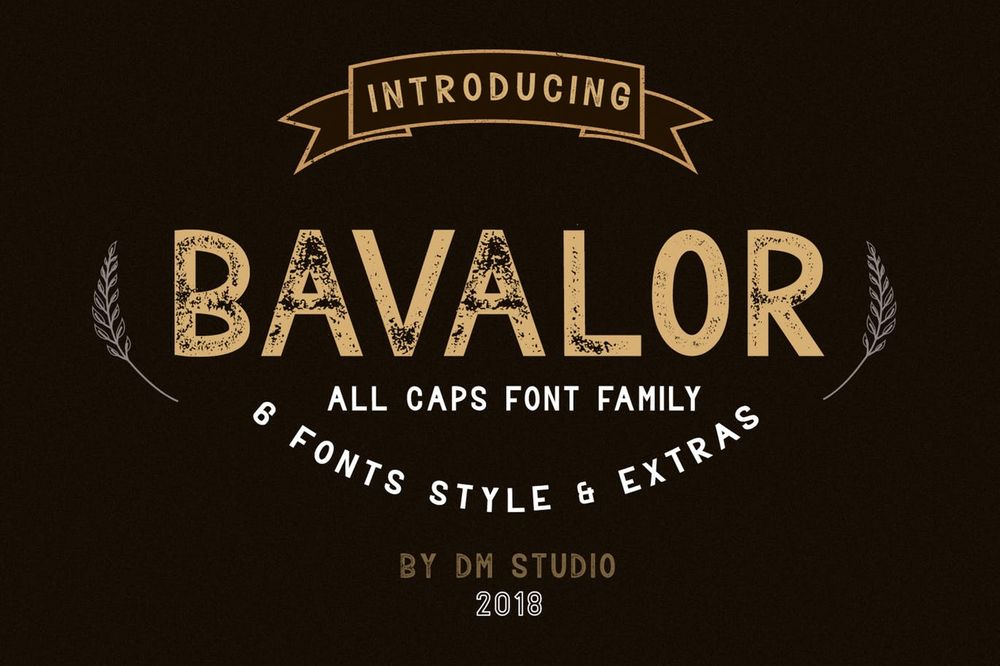
The all in caps sans serif-font family. It includes regular, outline, and grunge version with normal & italic style. Ideal for headlines, titles, badges, labels, packaging, posters and etc.
Watterlen
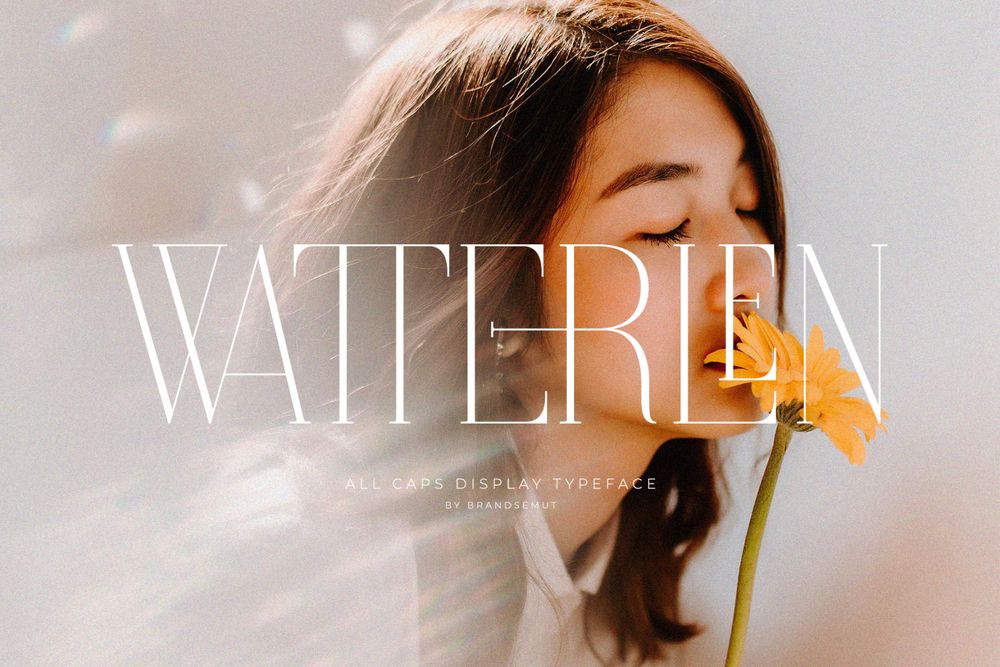
It is a classic and classy serif font. This font is both modern and nostalgic working great for logos, magazines, social media.
GLITTEN
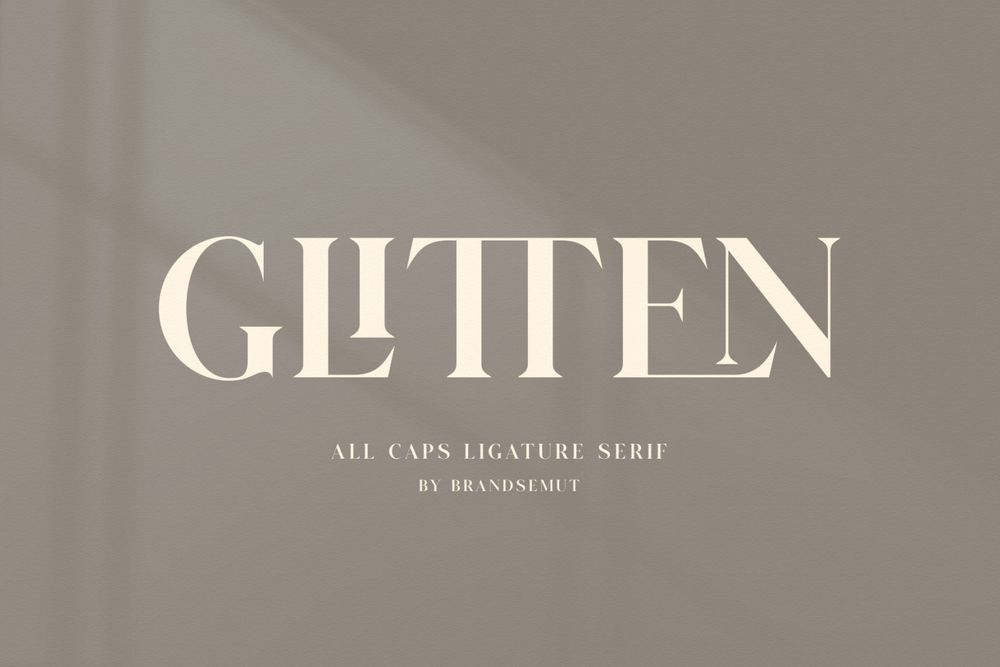
It is a elegant and classy serif typeface. This font is both modern and nostalgic working great for logos, magazines, social media.
Chia Seeds
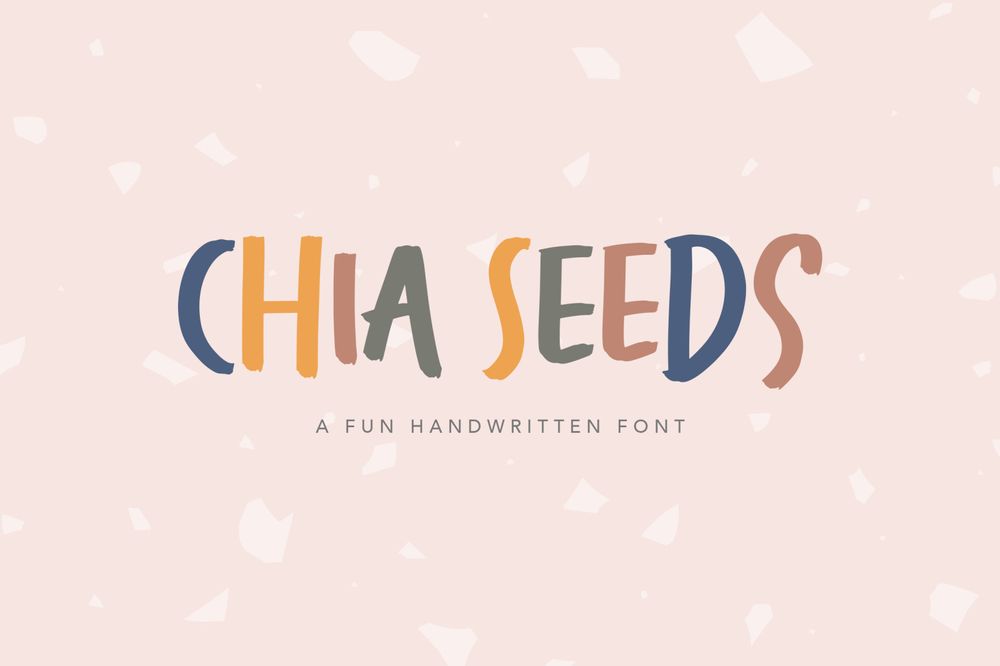
It is a fun brushed, bold, and playful font all caps type. It’s a perfect fit for a quotes, travel theme, food and nature theme – or a stylish text overlay to any background image.
Commodus
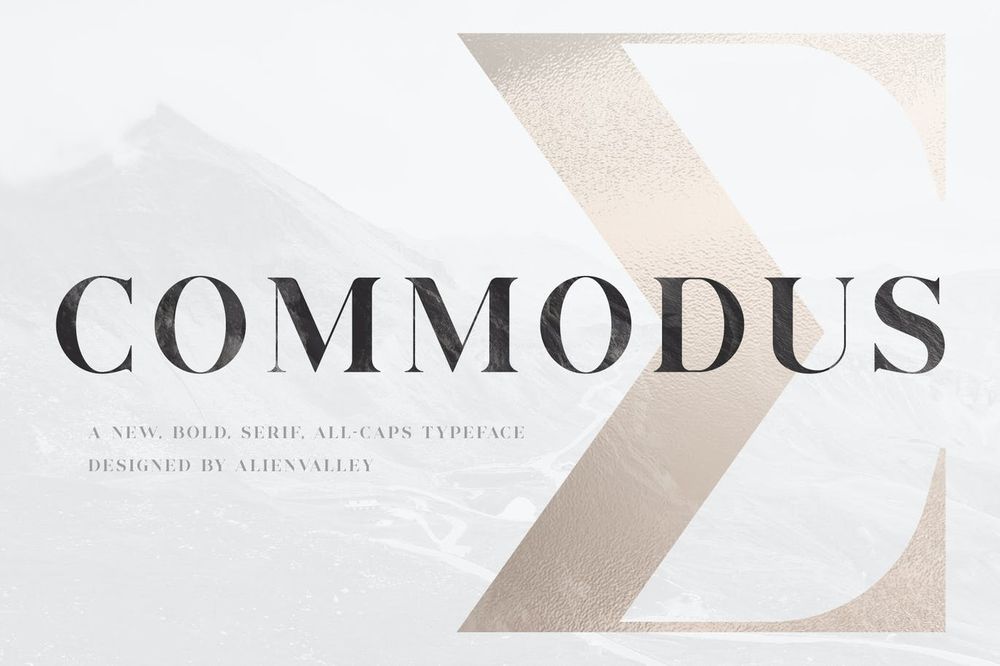
It is a bold all caps serif font. Perfect for any kind of headlines, titles, posters, lettering, packaging and etc.
Klausen
This font was designed for headlines and headers and it looks great when combined with script or signature fonts.
Baron Neue (Free)
It is an free uppercase display typeface inspired by the classic sans serif font families. Perfect for usage in posters, logotypes and headlines.
Duarose
It is a classic and elegant serif with a bunch of alternates up to 6 style for each characters that will make your presentations, titles or logos even more stunning and stand out.
Dos Herman
The all caps handmade font, every single letter has been carefully crafted to make your text looks beautiful. it’s perfect for logos, name cards, magazine layouts, invitations, headers and etc.
Mannish
It’s a all caps font which is inspired by retro designs. Make the classic impression of this font stand out more. Perfect for headlines, titles, posters, invitations, packaging, logos and etc.
Borg (Free)
It is a free geometric typeface with a curved incision. Perfect for short text such as headlines, titles and etc.
Rokurou (Free)
It is free display font which has a soft look that is expressed through delicate serifs and strong stems. It can be used to set body texts and works well in titles and headlines too.
AZONIX (Free)
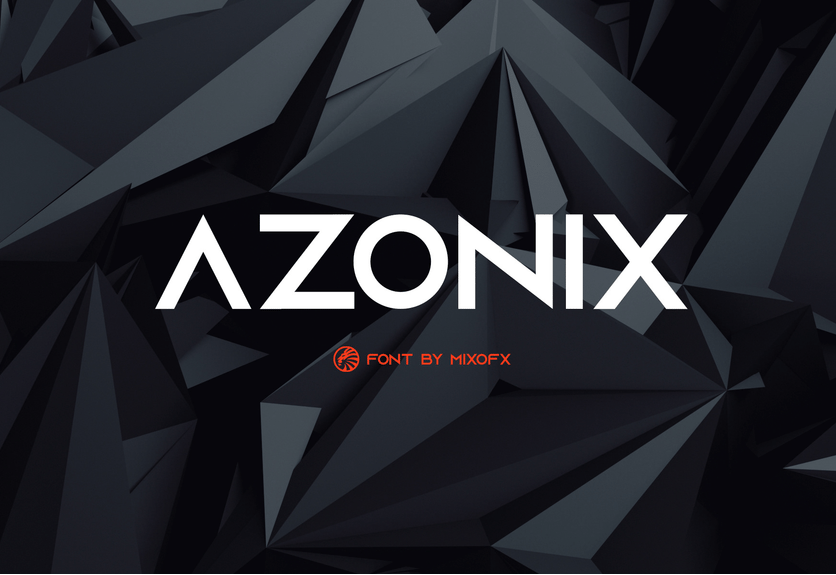
It has two display serif fonts that are beautiful and elegant. You can use this font combination for your flyers, logo design, badges, packaging, invitations and etc.
Lazy Coffee
This font with strong and challenging nuances very suitable for the titles, typography, posters, magazines, brochures, packaging, websites and etc.
Hardbeat
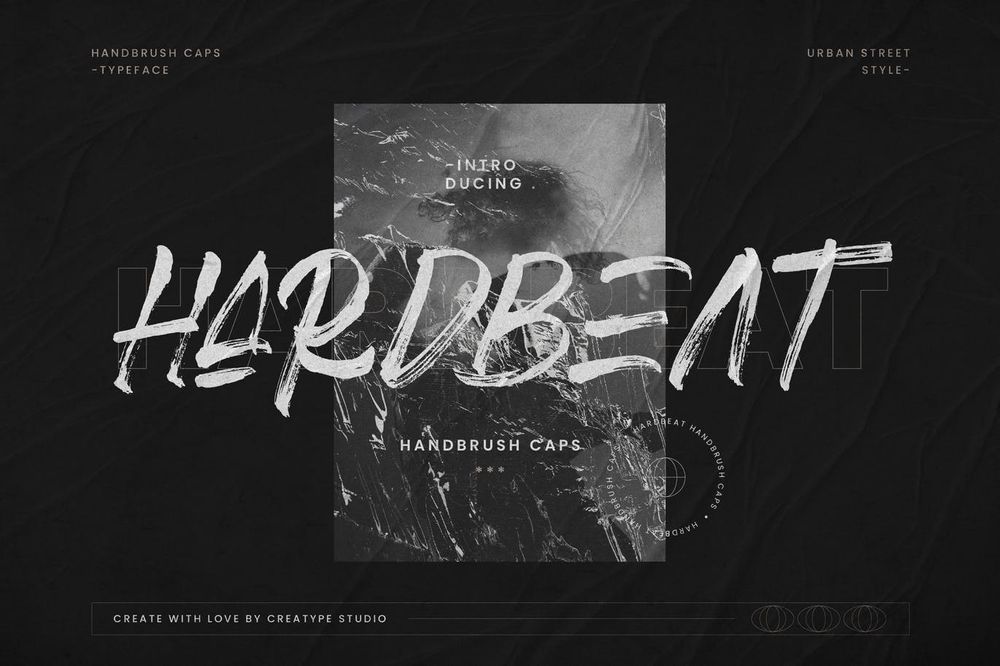
It is a font that conveys a message full of energy. Seen with very distinctive hand strokes, the texture of this font looks so detailed and bold. Perfect for branding projects, logos, social media posts, packaging and etc.
Harold
It is an all caps serif clean and universal font. Best for logos, branding, headings, posters and etc.
June Morning
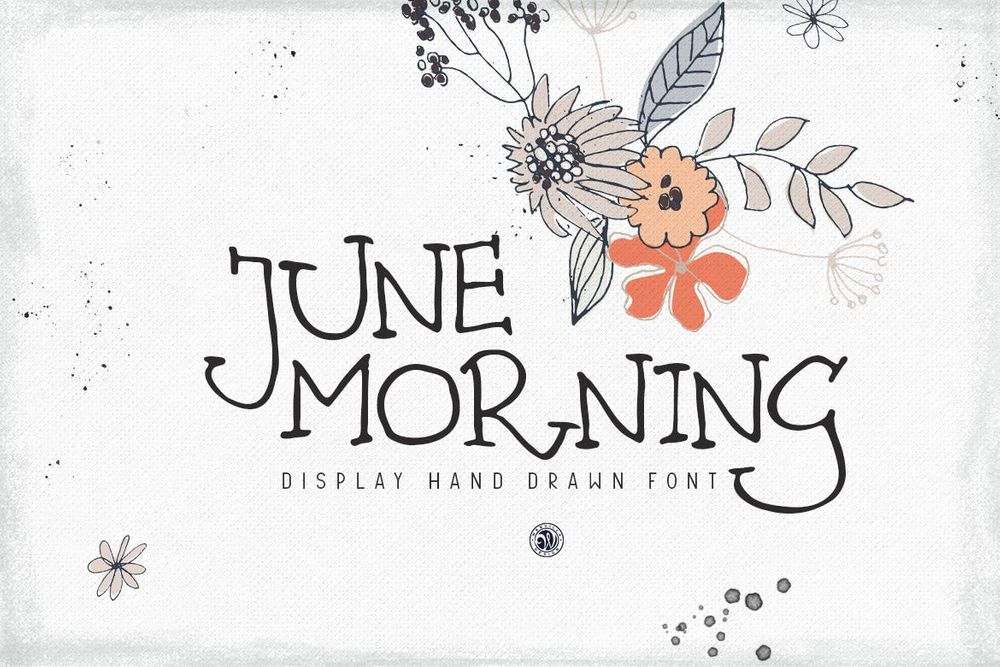
It is hand lettering display font. Ideal for invitations, logos, branding, blogs, handmade craft items, scrap booking, printed paper items and etc.
Northead
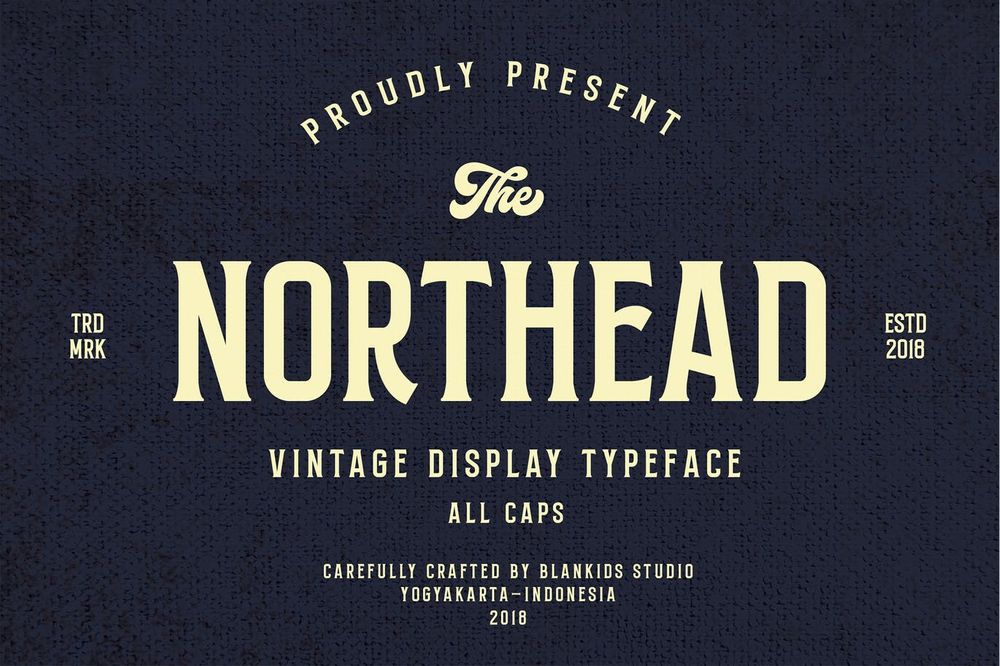
It is the vintage all caps serif font. Perfect for branding, packaging, posters, headlines, book covers, flyers and etc.
Party Confetti (Free)
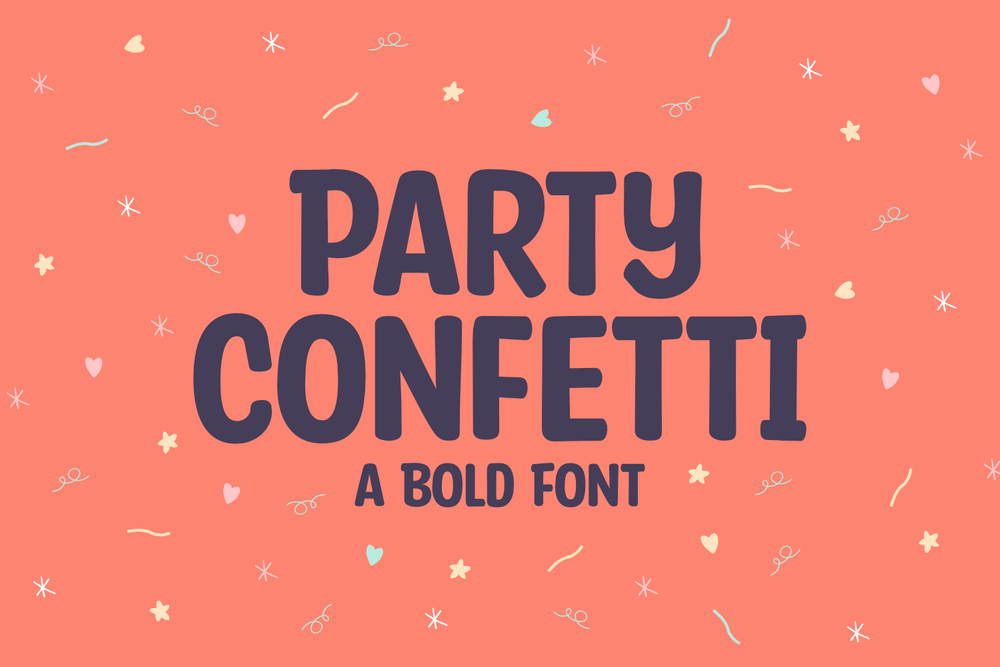
It is a beautiful free to use all caps font for your design such as headings, branding, posters, flyers, invitations and etc.
Gawker (Free)
It is a free display typeface for all your design needs such as postcards, titles, covers, packaging, branding and etc.
First Fun (Free)
It is totally free all caps font. Ideal for children books, covers, invitations, birthday cards, events, posters and etc.
Aguero
It is clean and elegant all caps serif font suitable for logos, greeting cards, quotes, posters, branding, name cards, stationary, design titles and etc.
Mexon
It is a sans-serif typeface with minimal, modern and futuristic style. This typeface is available in all caps only with stylistic alternates. This font is appropriate for your branding, logo designs, shirts and etc.
Roky (Free)
It is a free SVG font that would accompany you to create a mesmerizing design. It’s a white textured font which similarly looks like it’s drawn using a correction pen. Perfect for headlines, titles, covers, posters, flyers and etc.
Love Junkie
It is a skinny, handwritten ballpoint pen font set, including an all-caps version, regular version and dingbat file. Ideal for greeting cards, invitations, book covers, lettering, posters and etc.
Deluce
It is a modern serif font family whose design refers us to the style of transitional serifs. It suitable for art, modern envelope letterings or book designs, happening style like handdrawn design or watercolor design theme and etc.
Bondie Slab
Condensed slab serif with solid font files based on the compact solid font, by combining a variety of styles. Suitable for Logos, greeting cards, quotes, posters, branding and etc.
Rovey
It is a handwritten serif all caps Font. Ideal for greeting cards or a package design, or even a brand identity, craft design and etc.
Prestage
It is an elegant bold sans serif with solid and outlined font files. This font family is based on the compact solid font, by combining a variety of styles. Suitable for logos, greeting cards, quotes, posters, branding and etc.
Carla Sans
It is a minimalist modern elegant font with beautiful ligatures, tons of special alternative glyphs, ornament and multilingual support. Best for logo design, clothing branding, product packaging, magazine headers and etc.
Classy Marisa
It is a minimalist modern elegant vintage font with beautiful ligatures, tons of special alternative glyphs, ornament and multilingual support. Ideal for your typography designs.
Knoxville
It is a beautiful sans serif that makes logo creation easy. Perfect to use for branding, logo designs, headlines and etc.
Ostrich Sans (Free)
It is a beautiful condensed sans serif all caps free to use typeface. Ideal for headlines, covers, titles, posters, flyers and etc.
Milkman (Free)
It is a grotesk sharp display free to use typeface. Best suits for nice headlines, book covers, invitations, wedding designs and etc.
Rebeqa (Free)
It is a display typeface, available free for commercial & personal projects such as headlines, titles, website typography, logos and etc.
Aprille
It is a display vintage font with tons of cool characters, symbols, and OpenType features. This typeface is perfect for quotes, logos, apparel, advertising, wedding invitations and etc.
Vienna
It is a modern, minimal and classy serif font that is perfect for editorial use. This font would pair perfectly with a script/signature or handwritten style text.
SuperLine
It is a modern, all caps display font. Specifically developed for contemporary design styles and applications, it is supplied in three styles: regular, lined and outline. Best for sport designs, headlines, titles, product packaging and etc.
Orion
It is a minimalist geometric all caps typeface for your designs such as branding, logos, titles, covers and etc.
Modernica Tropico
It’s a fashionable all caps serif that portrays classic elegance. This versatile font works great for mastheads, pull quotes and wordmark logos.